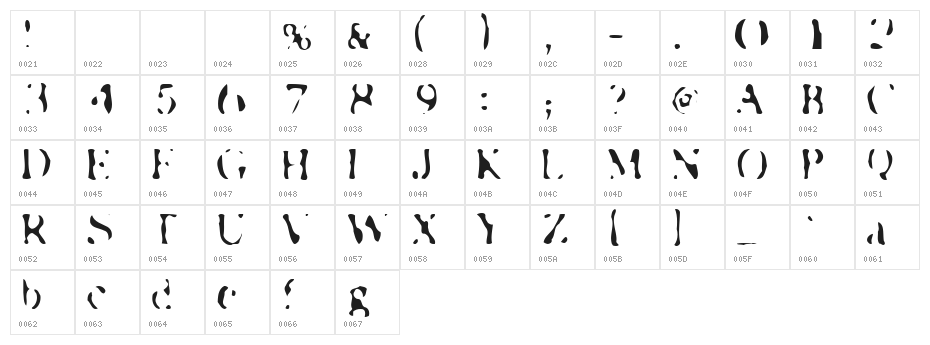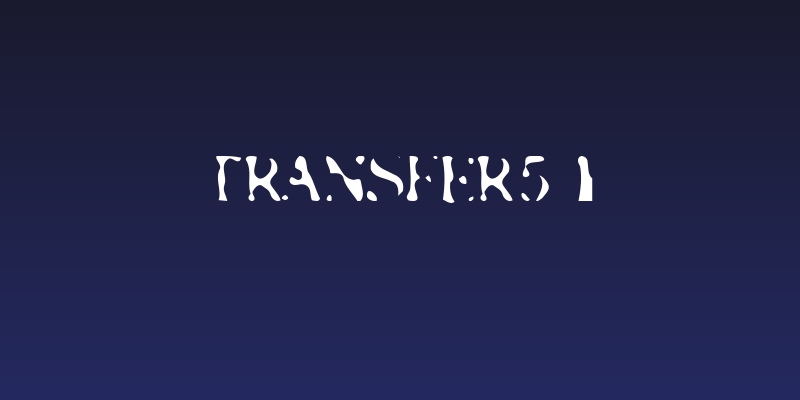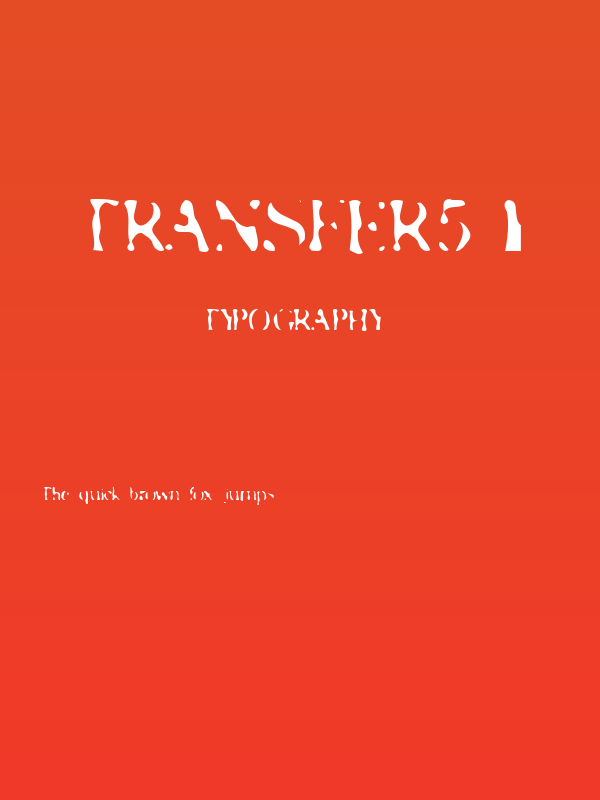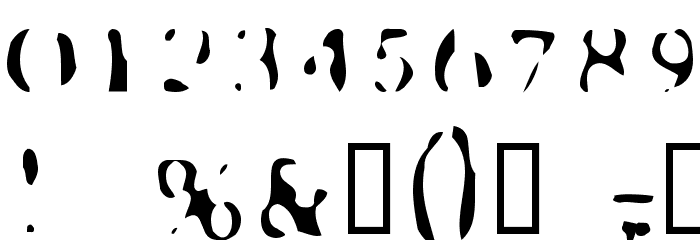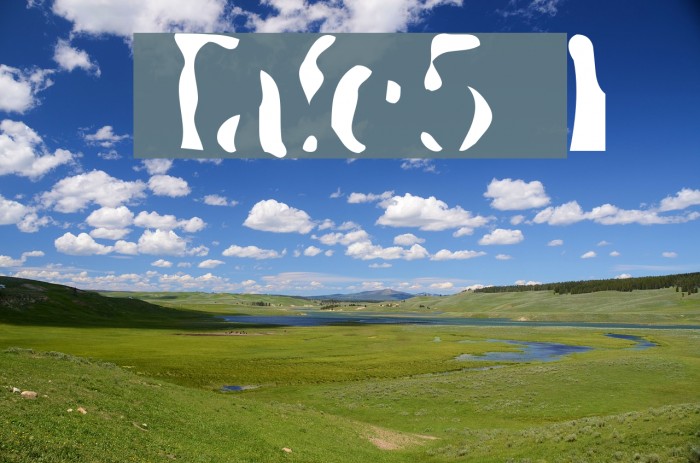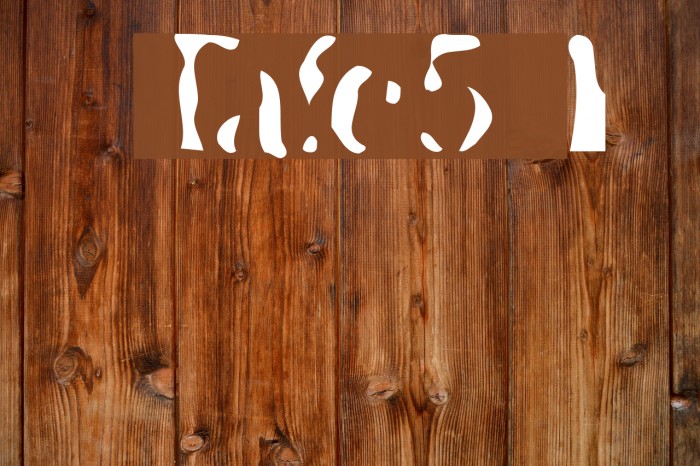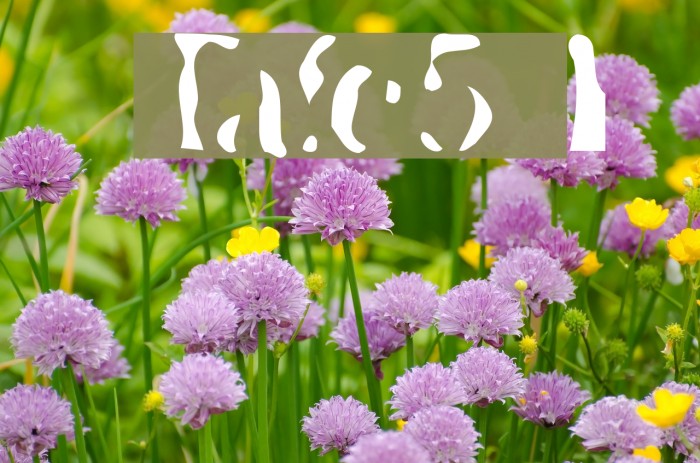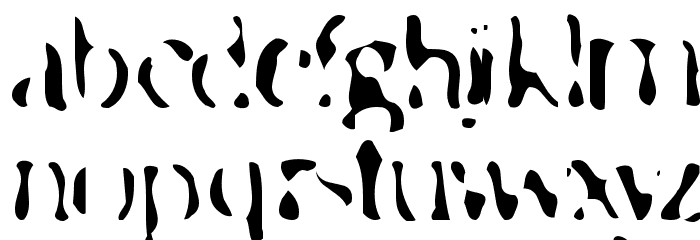
Transfer51 Font
Transfer51 Description
This font features a highly decorative and abstract style, characterized by its irregular and fragmented letterforms. The design incorporates a unique blend of negative space and bold strokes, creating a visually striking appearance. Each character appears as if it has been partially eroded or splattered, giving it an organic and dynamic feel. The font's artistic nature makes it stand out, though it may challenge readability in smaller sizes. Its distinctiveness is ideal for creative projects that require a bold statement.
| Proposed Projects | Ideal for artistic posters, album covers, or branding that seeks a bold, unconventional look. |